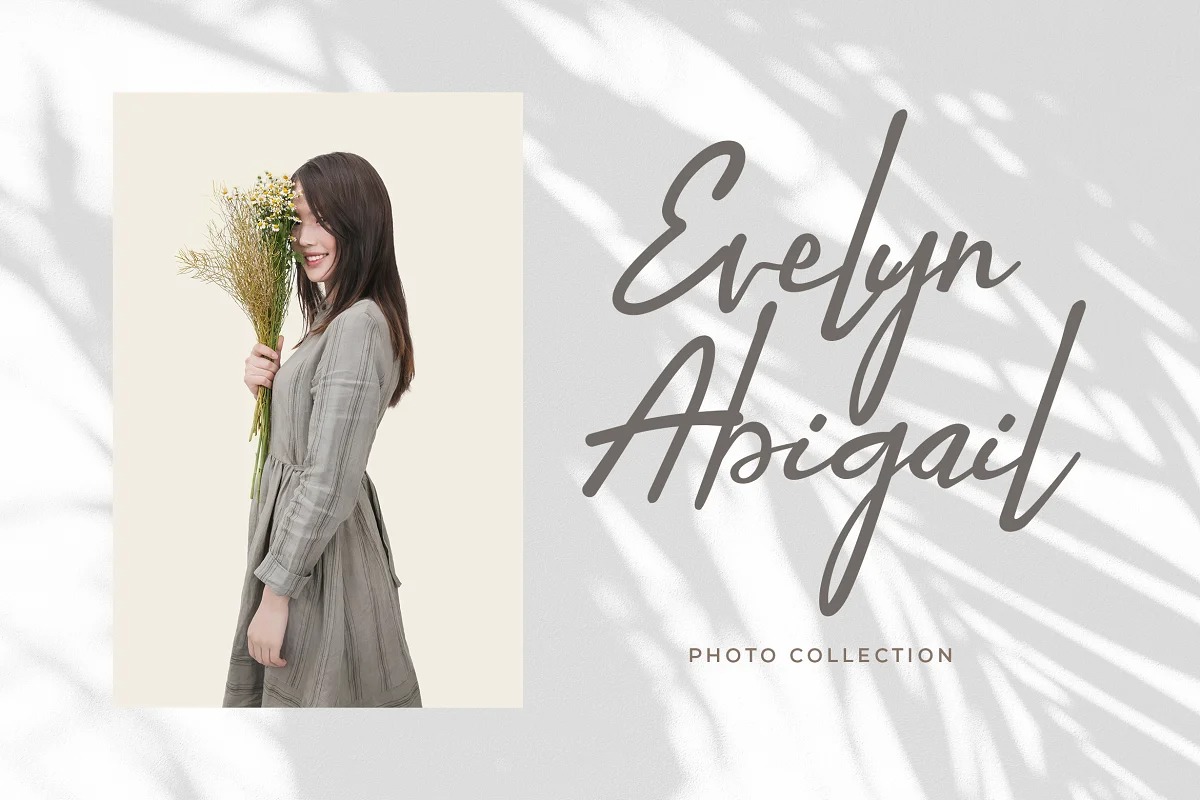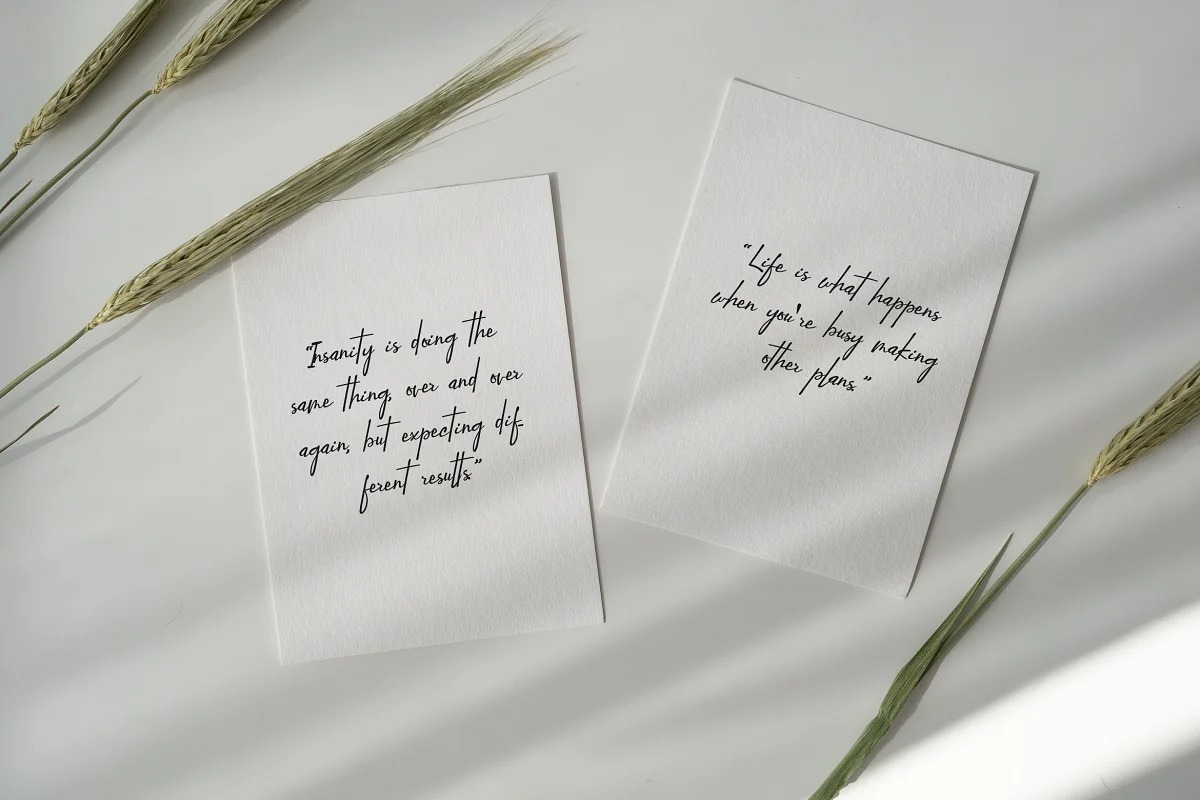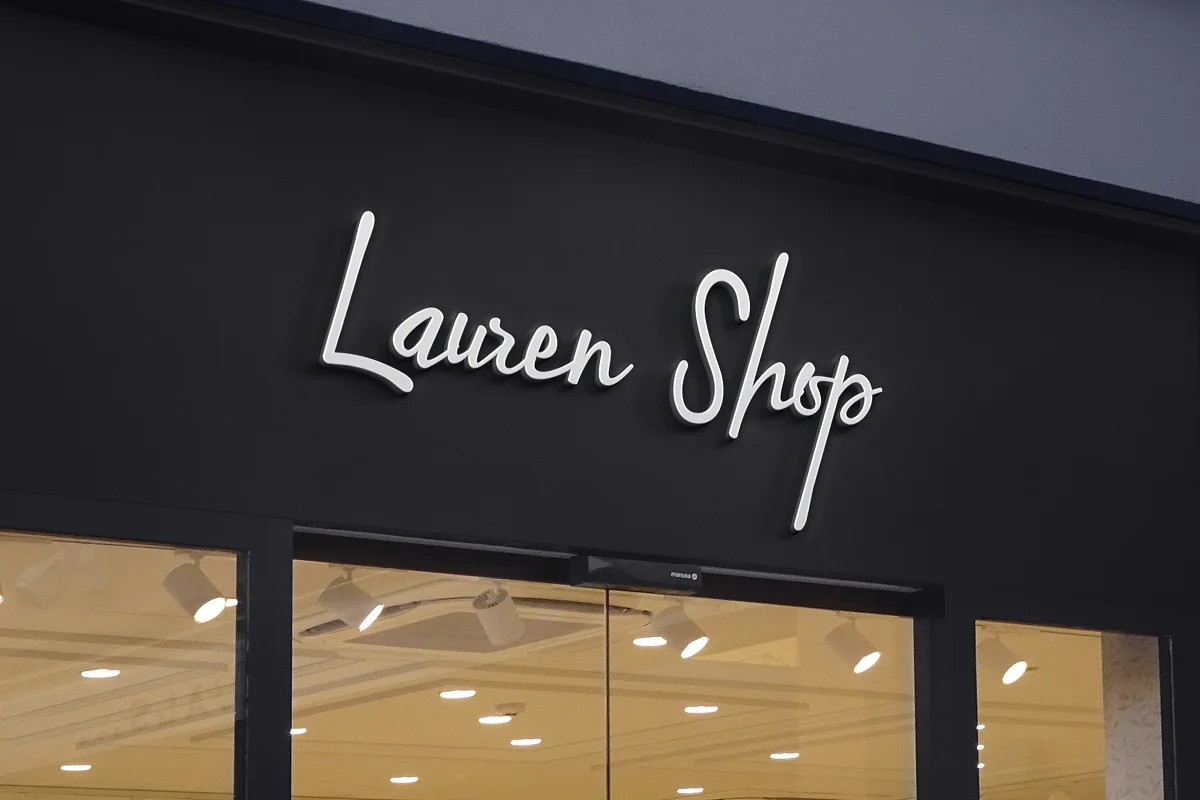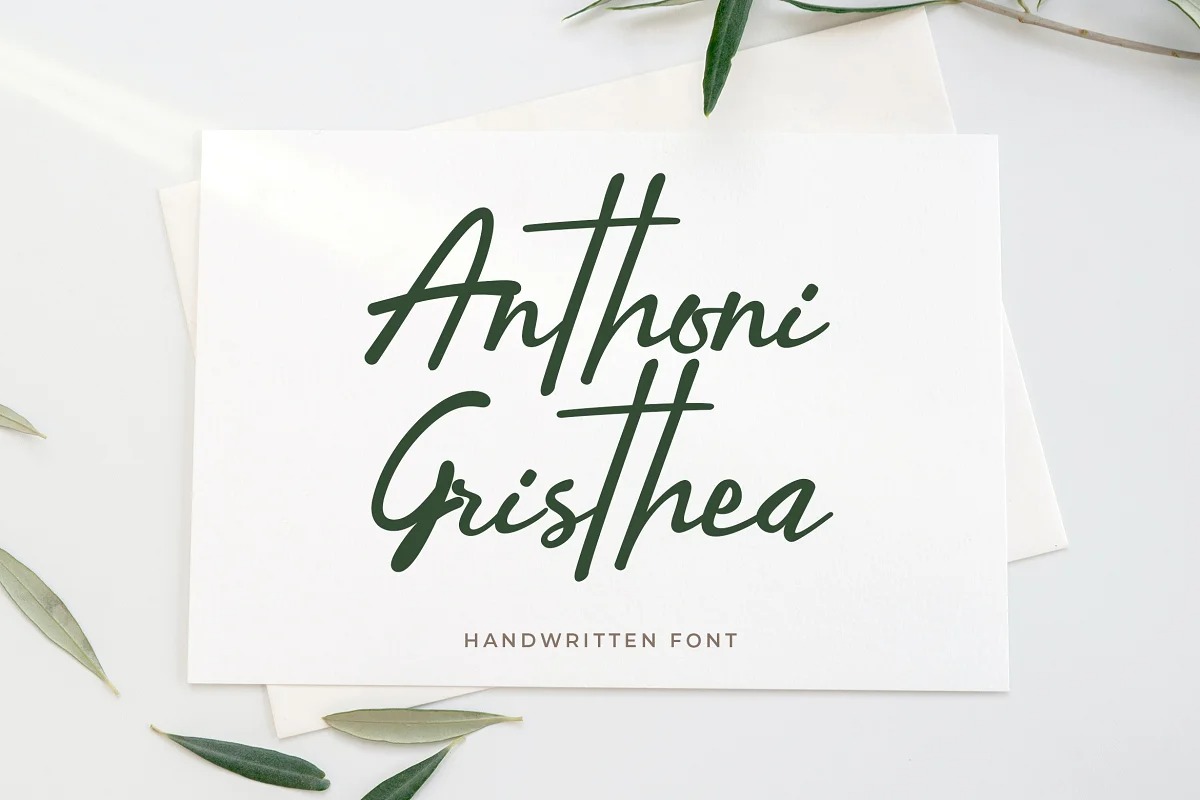
Anthoni Gristhea Font
Anthoni Gristhea Handwritten Font
This is an exquisite modern signature script font, masterfully designed to become a true favorite. Modern signature font that feels beautiful classy, elegant, and modern .This font is perfect suited for a wide variety of projects, as to signature, stationery, logo, wedding, typography quotes, magazine or book cover, website header, branding and more. Also for fashion related branding or editorial design and displays both masculine and feminine qualities.